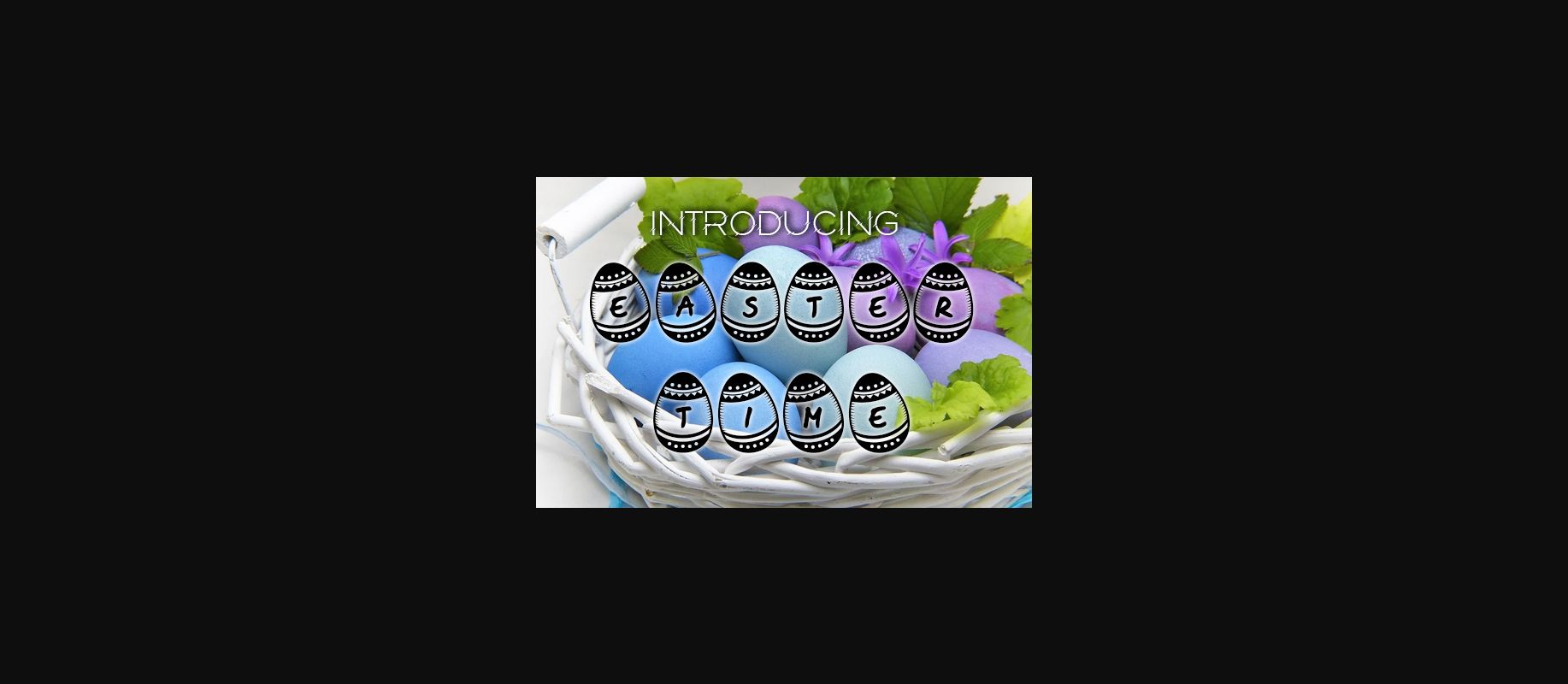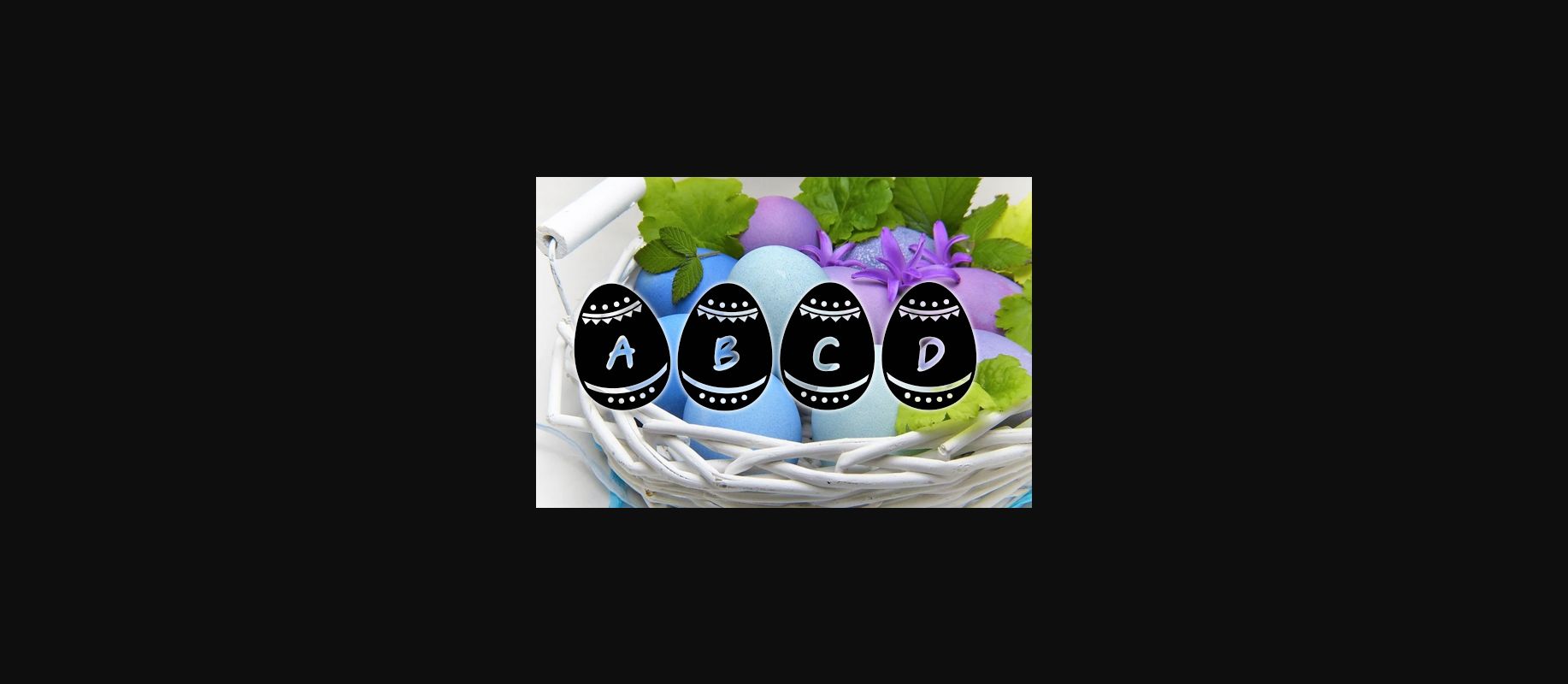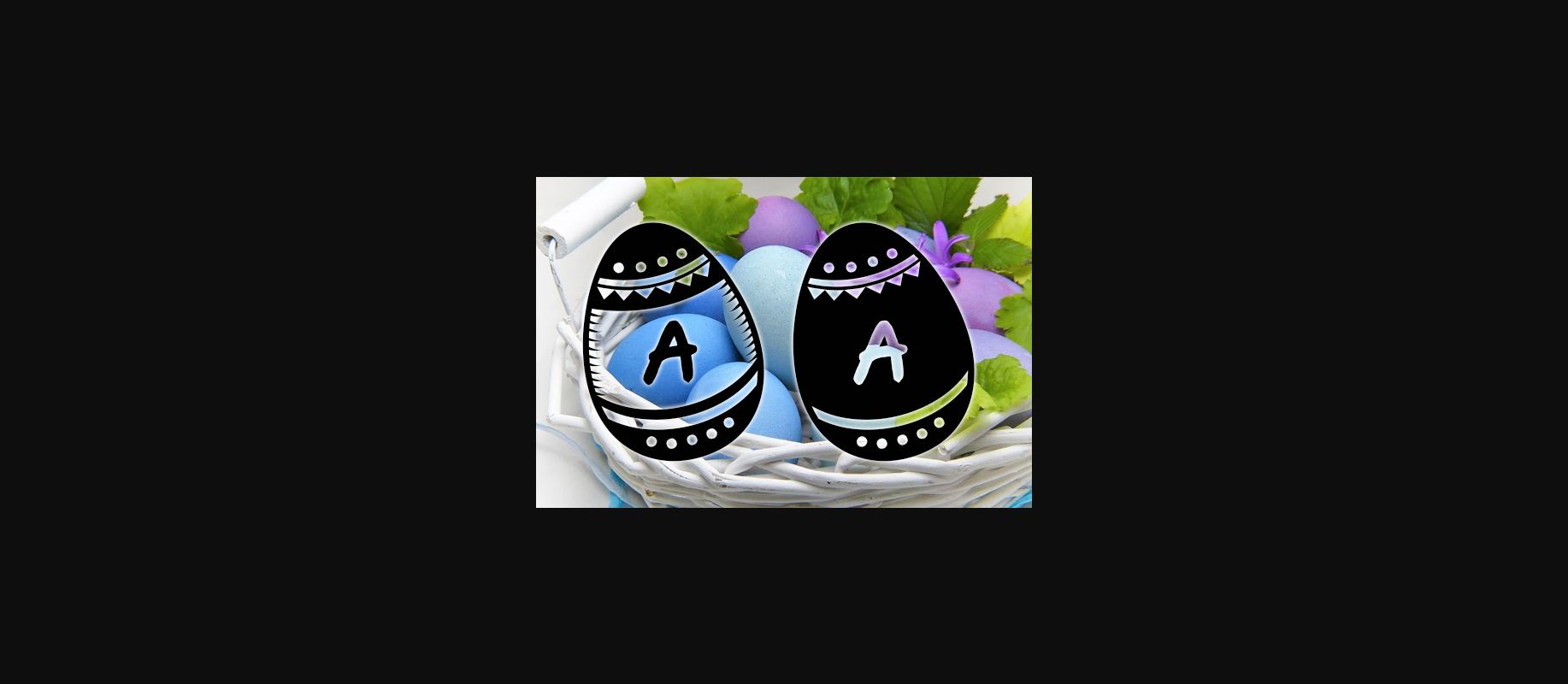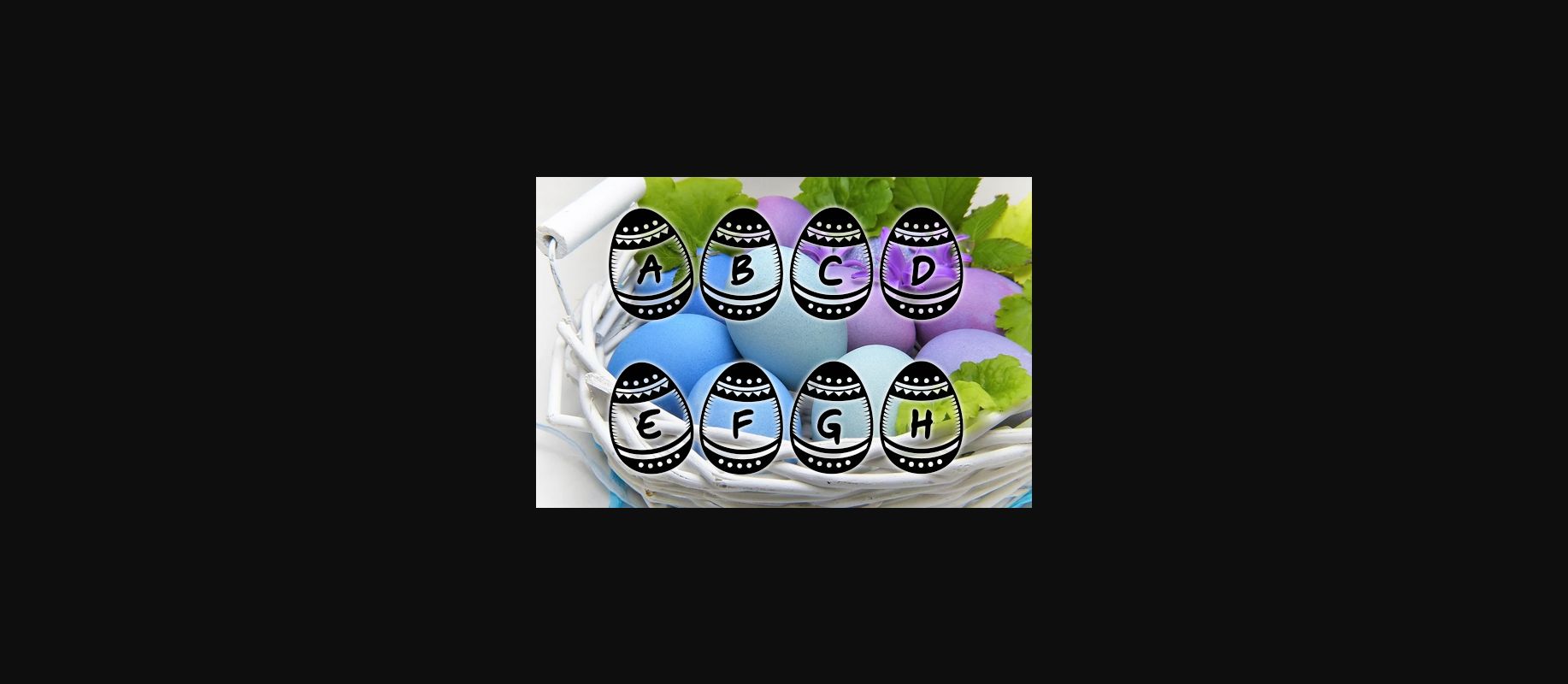
About Easter Time Font
Easter Time is a lovely decorative font. Each letter features an Easter Egg ornament. This original look will appeal to a wide range of crafty ideas, from letterheads and titles, to stationery.